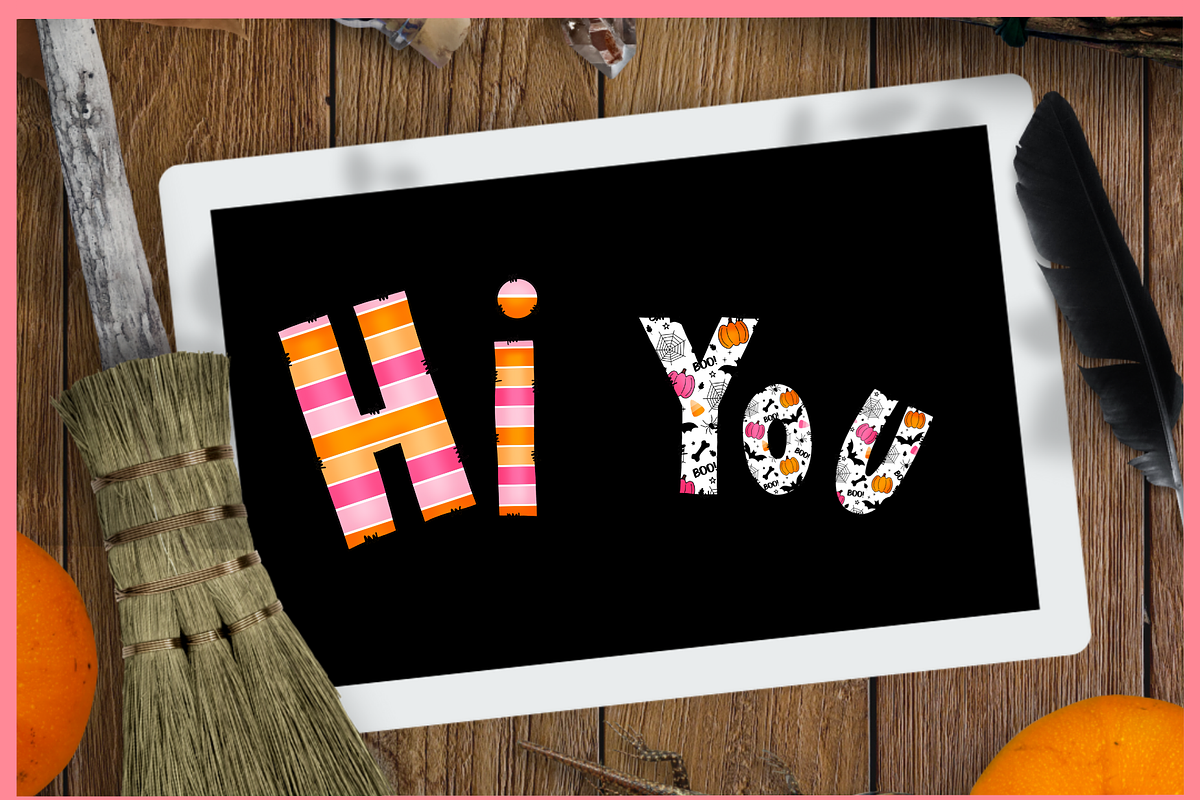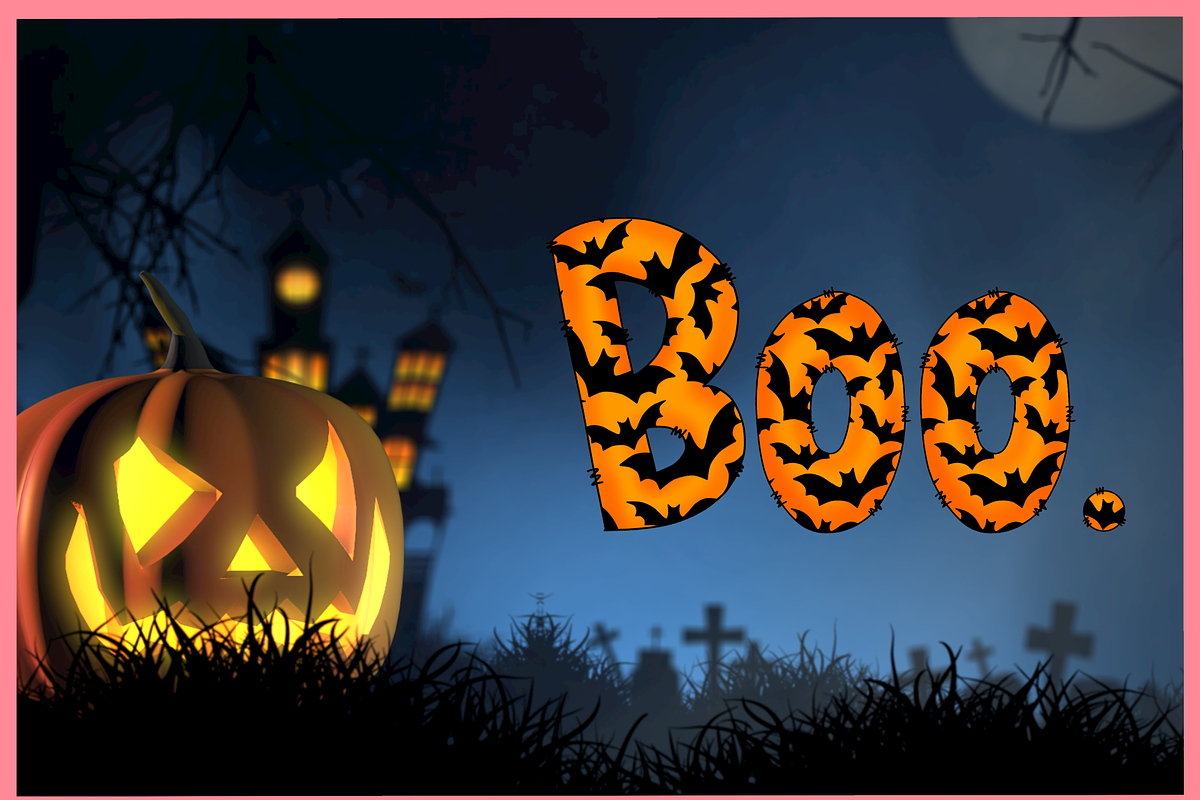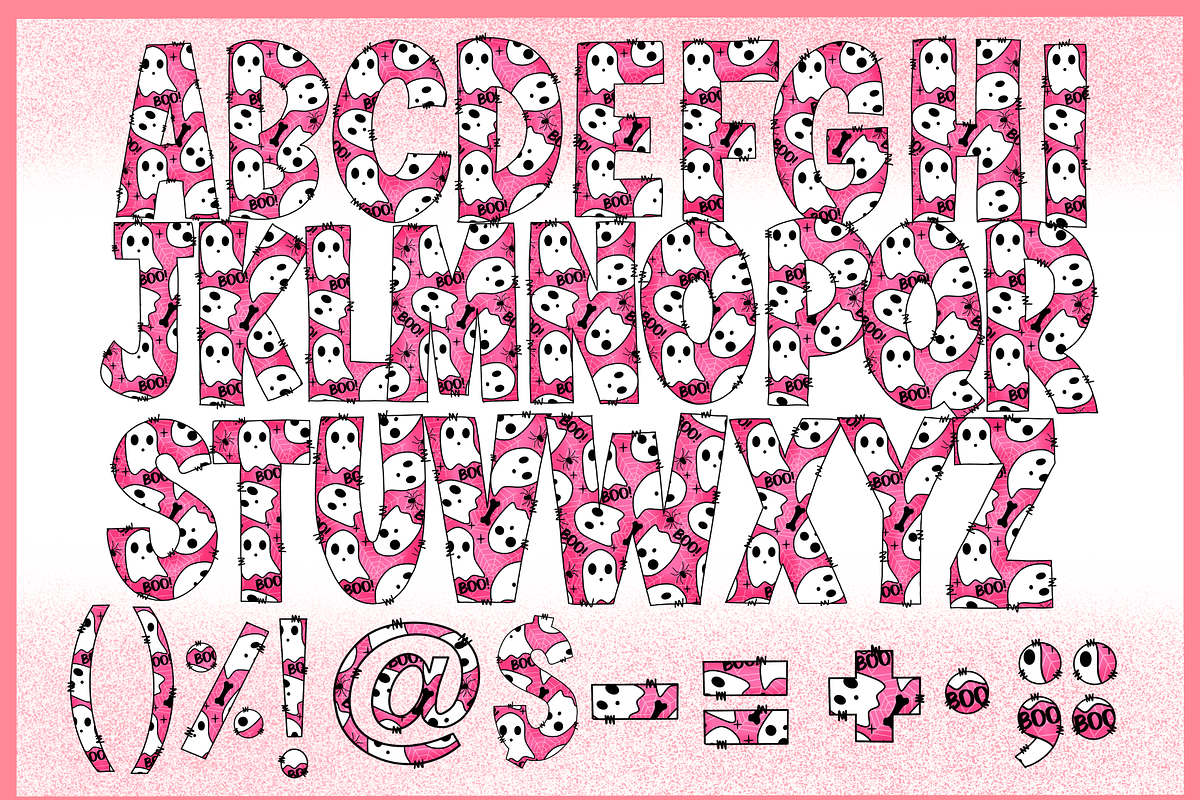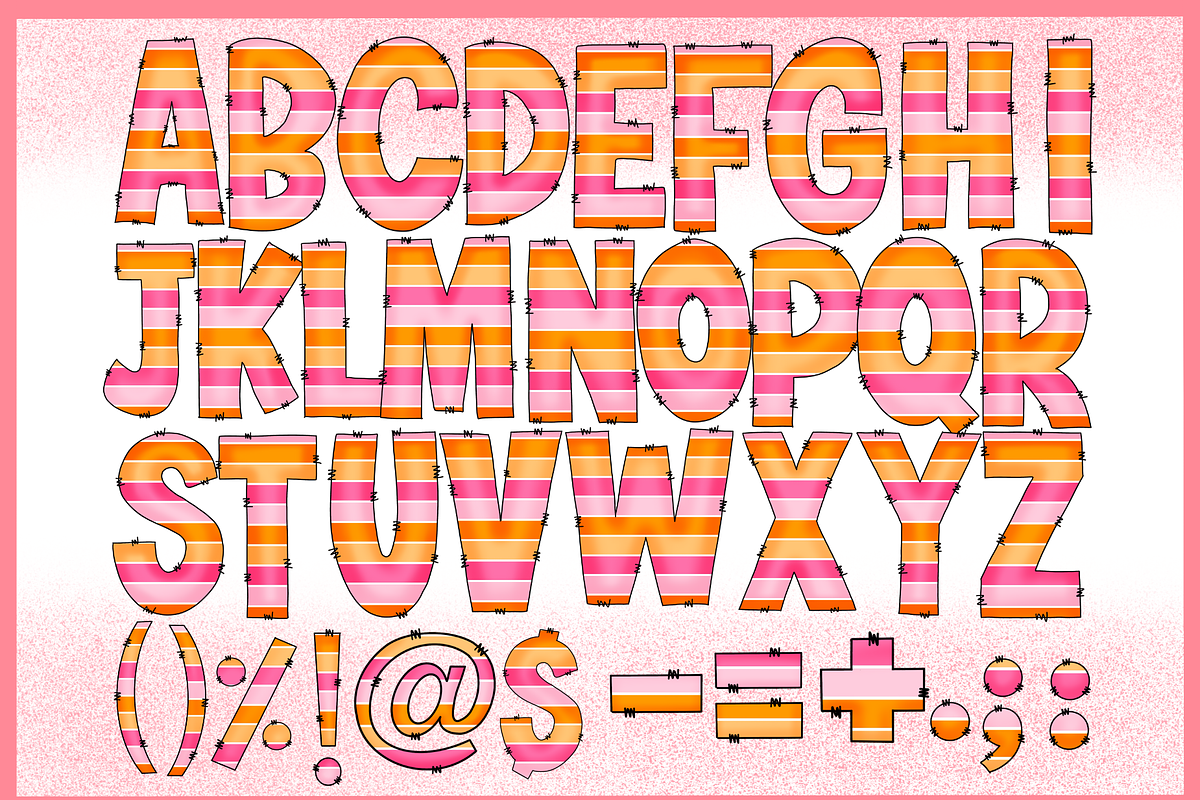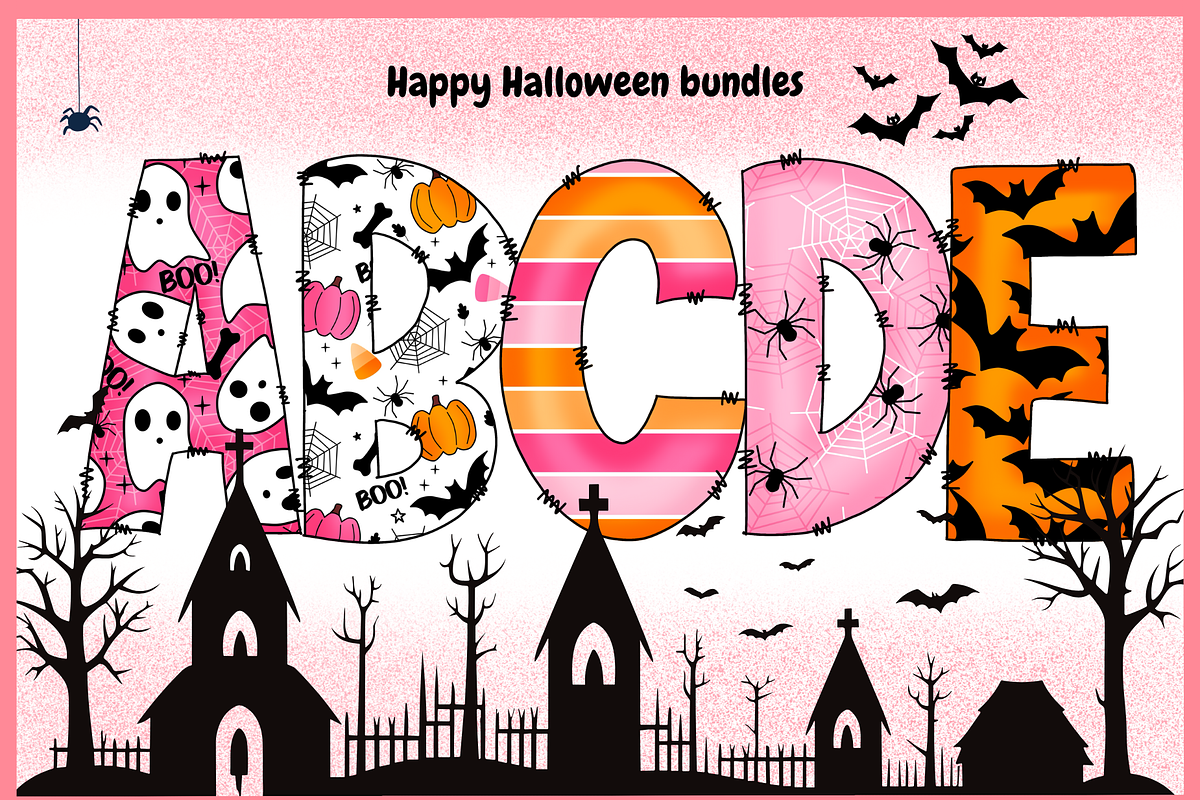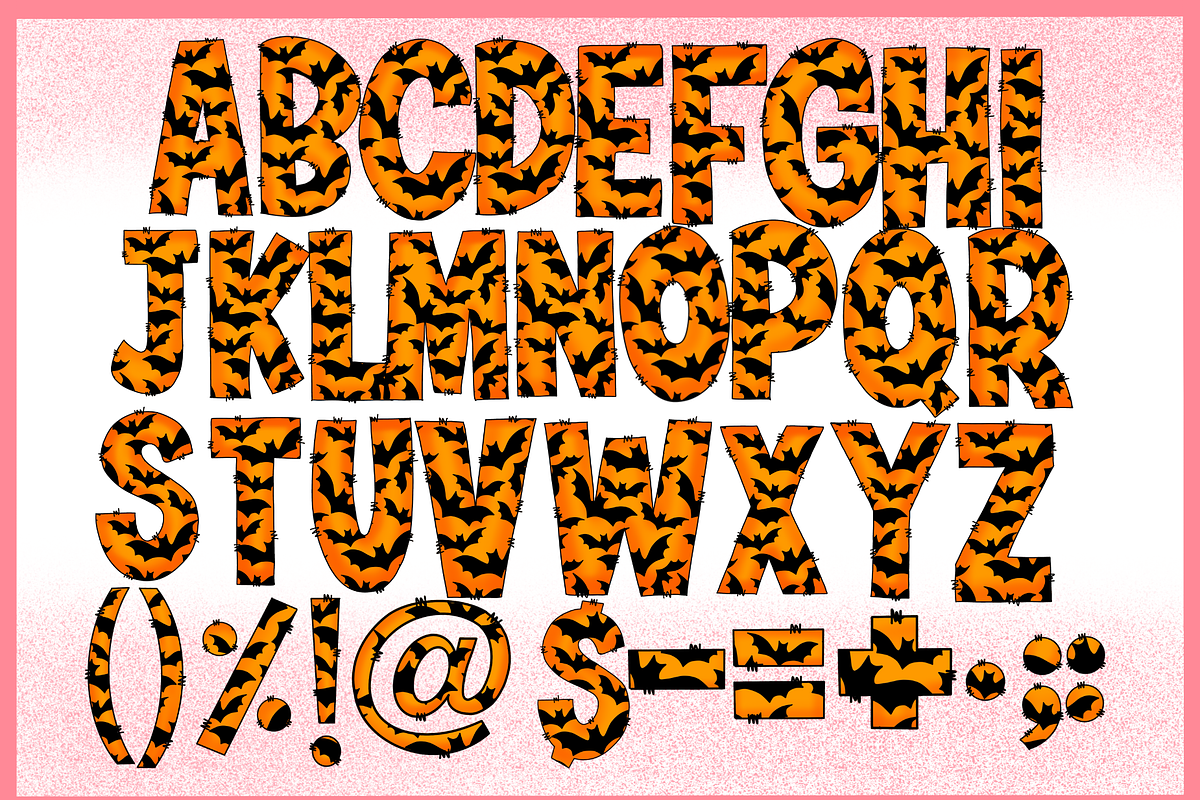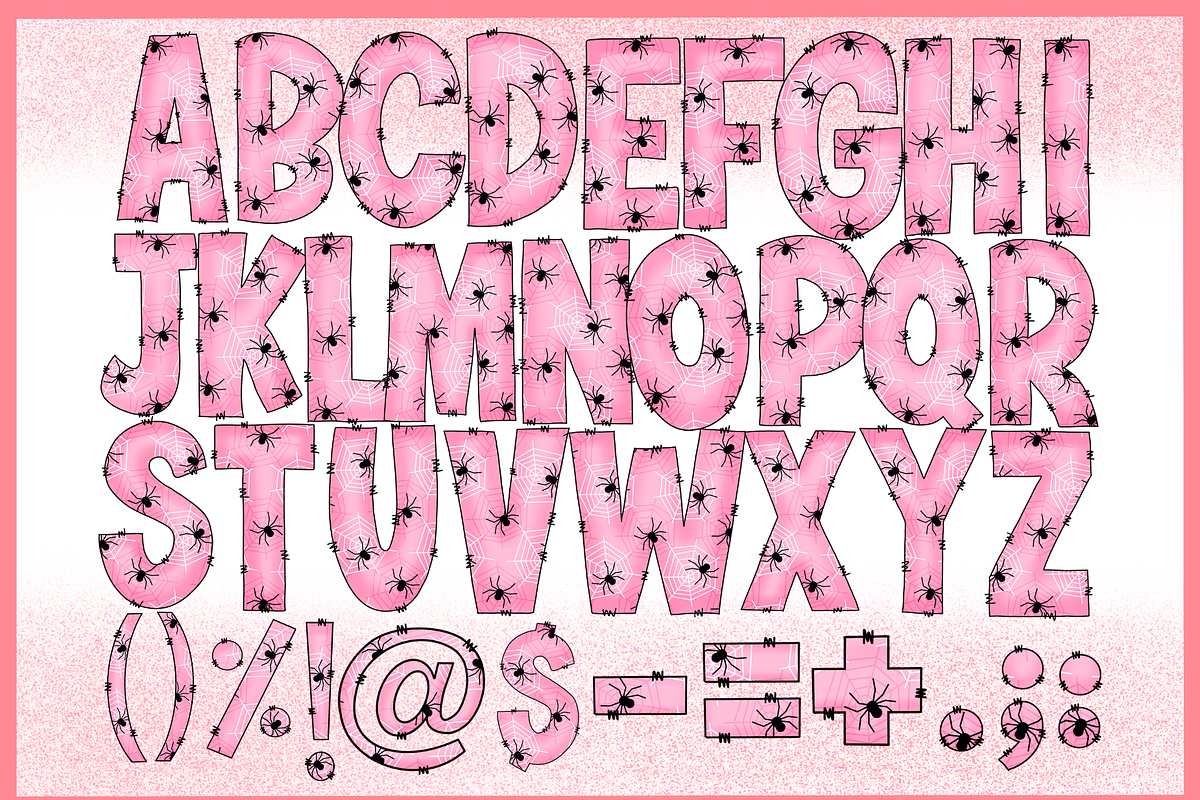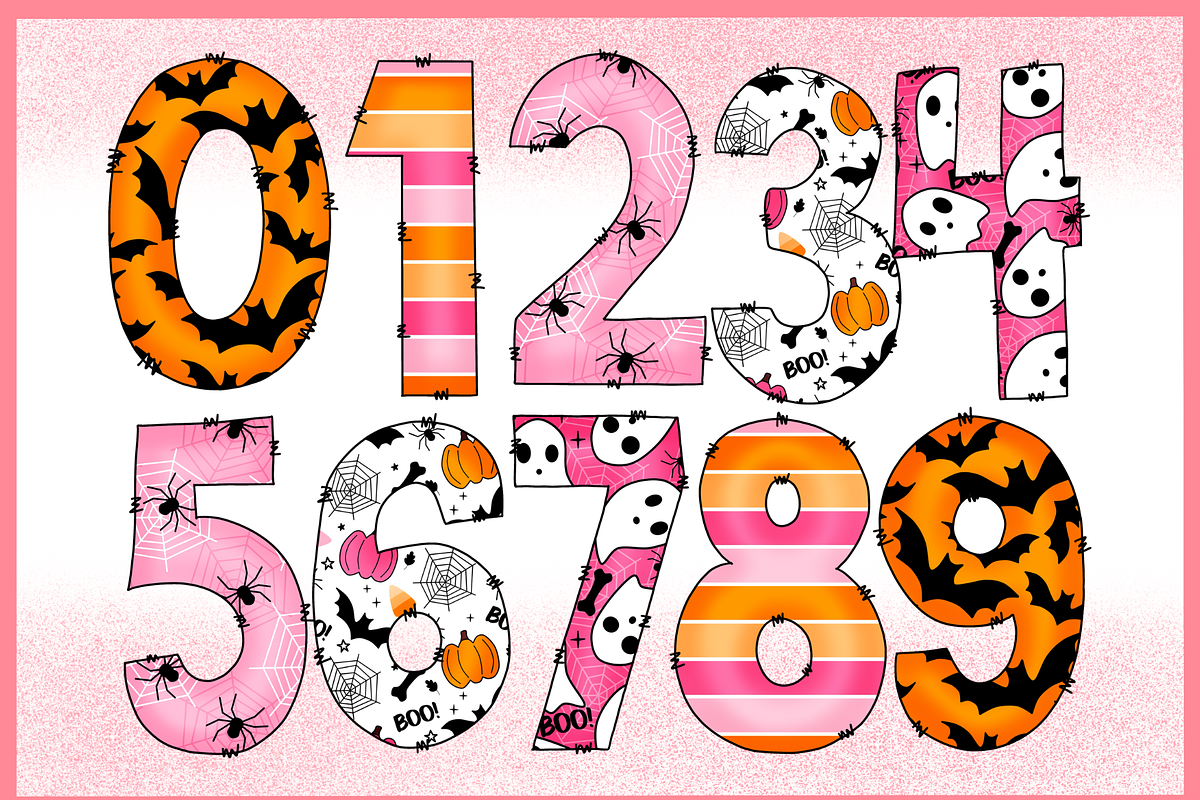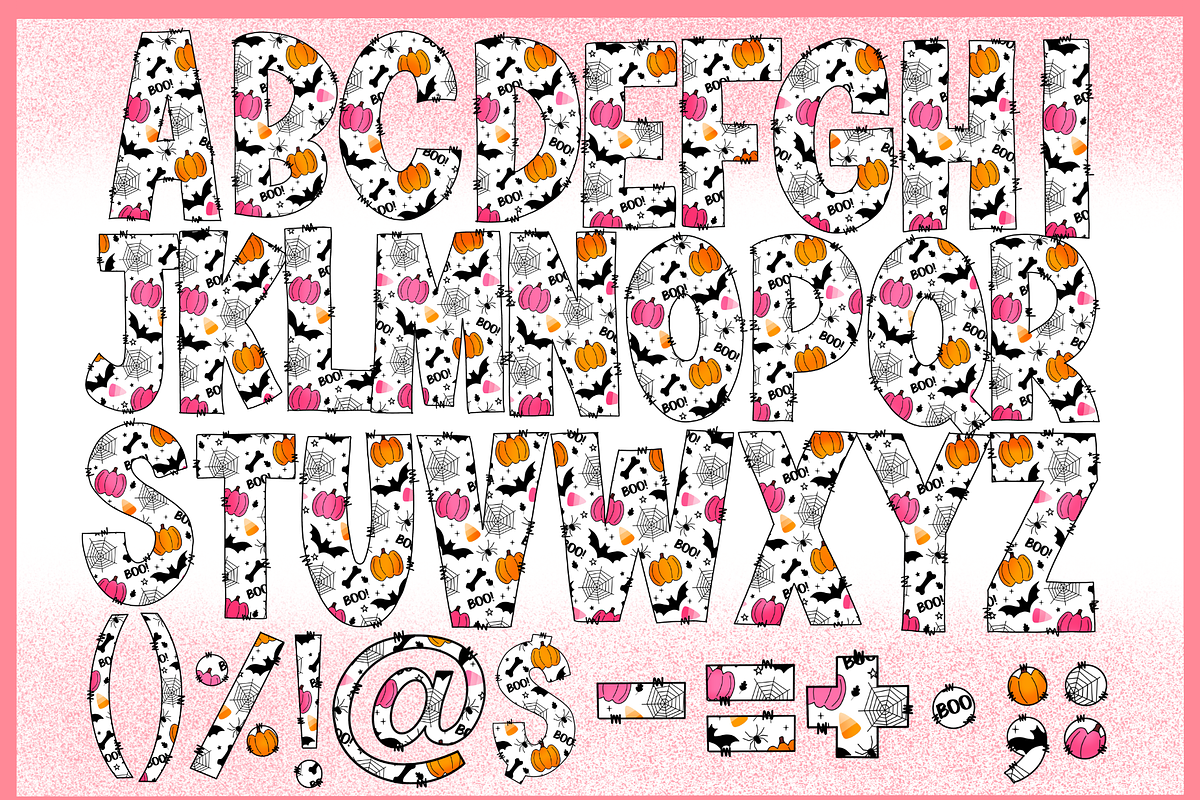
Happy halloween-PNG fonts
Happyhalloween Font Get ready to elevate your spooky-season designs with this fun and festive Halloween font set, featuring 5 unique styles!